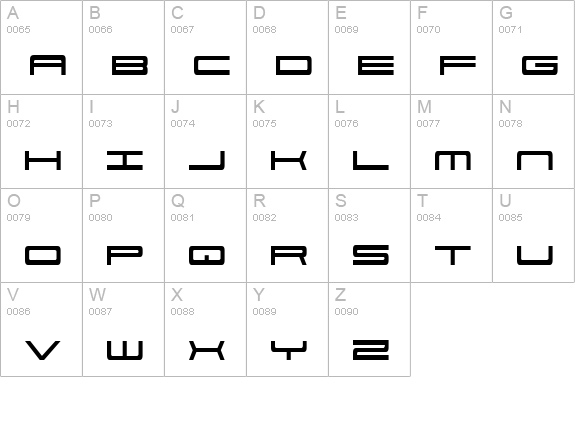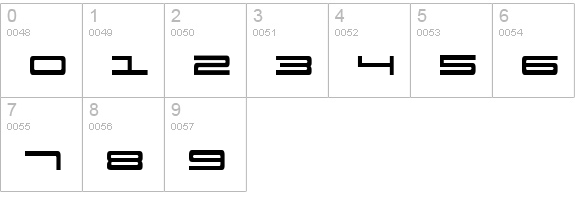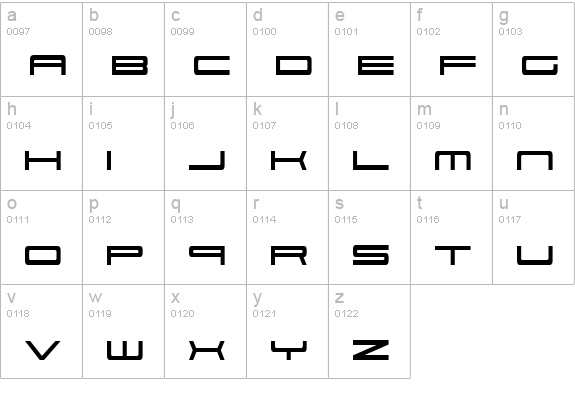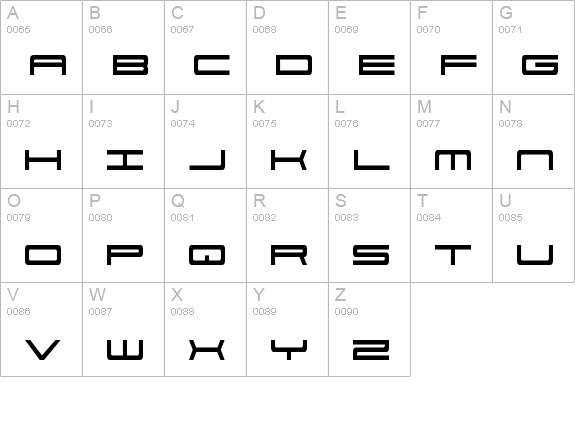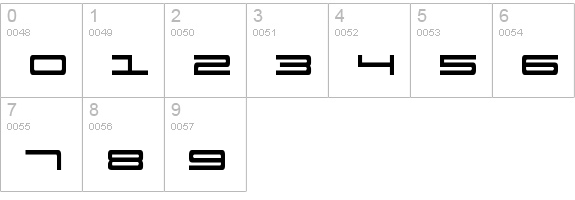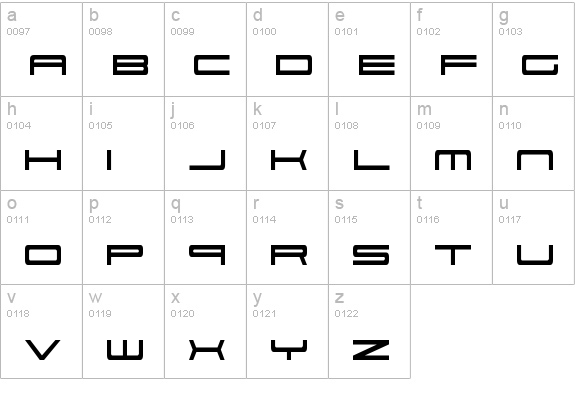
911 Porscha Font Details
The 911 Porscha font is a sleek and sophisticated typeface that exudes elegance and style. With its clean lines and modern design, this font is perfect for adding a touch of luxury to your projects. The 911 Porscha font is versatile and can be used for various purposes, from branding to editorial design. What makes the 911 Porscha font even more appealing is that it is available for free download at FontsMarket.com. This means that you can easily access this beautiful font and use it in your projects without any cost. Don't miss out on this opportunity to enhance your designs with the 911 Porscha font - download it for free today at FontsMarket.com!